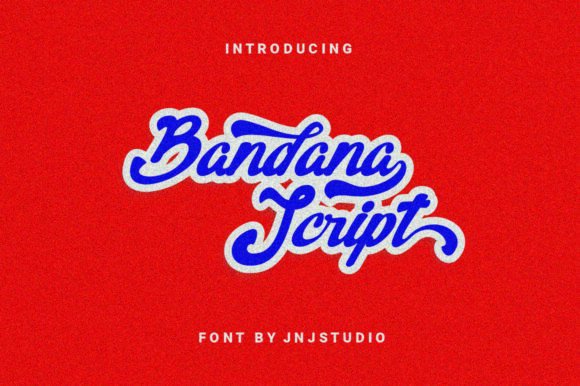
Bandana Script Font: Elevate Your Designs with Elegance and Sophistication
In the world of typography, a well-crafted script font can make all the difference in elevating your designs from ordinary to extraordinary. Introducing “Bandana,” a beautifully designed script font that exudes elegance and sophistication. With its smooth, flowing curves and graceful strokes, Bandana brings a sense of charm and warmth to any design, making it perfect for a wide range of creative projects.
The Perfect Balance of Modern Calligraphy and Classic Cursive
Bandana script font features a perfect balance between modern calligraphy and classic cursive, making it versatile for both formal and casual designs. This unique blend of styles allows Bandana to seamlessly adapt to various design contexts, from luxurious branding and high-end invitations to playful logos and packaging.
The font’s hand-lettered style gives it a personal touch, making it ideal for designs that require a human and approachable feel. Whether you’re creating a brand identity, designing an invitation, or crafting a logo, Bandana’s elegant and refined aesthetic is sure to impress.
Key Features of Bandana Script Font
- Smooth, flowing curves and graceful strokes: Bandana’s fluid lines and curves create a sense of movement and harmony, adding a touch of sophistication to any design.
- Hand-lettered style: The font’s hand-crafted nature gives it a unique and personal feel, perfect for designs that require a human touch.
- Perfect balance between modern calligraphy and classic cursive: Bandana’s blend of styles makes it versatile and adaptable to various design contexts.
- Ligatures and alternates: The font’s carefully designed ligatures and alternates add a natural, handwritten touch, enhancing its aesthetic appeal.
Use Cases for Bandana Script Font
Bandana’s versatility and elegance make it suitable for a wide range of design applications, including:
- Branding and logos: Create a lasting impression with Bandana’s sophisticated and refined aesthetic.
- Invitations and events: Add a touch of luxury and elegance to your invitations, wedding stationery, and event branding.
- Packaging and product design: Elevate your product packaging with Bandana’s unique and eye-catching style.
- Advertising and marketing materials: Make a statement with Bandana’s bold and sophisticated aesthetic.
Why Choose Bandana Script Font?
In a world where typography plays a crucial role in design, Bandana script font stands out as a timeless and stylish typeface. Here are just a few reasons why you should consider Bandana for your next design project:
- Elegance and sophistication: Bandana’s refined aesthetic adds a touch of luxury and sophistication to any design.
- Versatility: The font’s adaptability makes it suitable for a wide range of design applications.
- Unique and eye-catching: Bandana’s hand-lettered style and carefully designed ligatures and alternates make it stand out from other script fonts.
- Timeless: Bandana’s classic and elegant design ensures that it will remain a stylish choice for years to come.
In conclusion, Bandana script font is a beautifully crafted typeface that exudes elegance and sophistication. With its smooth, flowing curves and graceful strokes, it brings a sense of charm and warmth to any design. Its hand-lettered style, perfect balance between modern calligraphy and classic cursive, and carefully designed ligatures and alternates make it a versatile and stylish choice for a wide range of creative projects.
Whether you’re a designer, artist, or simply someone who appreciates the art of typography, Bandana is sure to elevate your designs and inspire your creativity. So why wait? Discover the beauty and elegance of Bandana script font and take your designs to the next level.